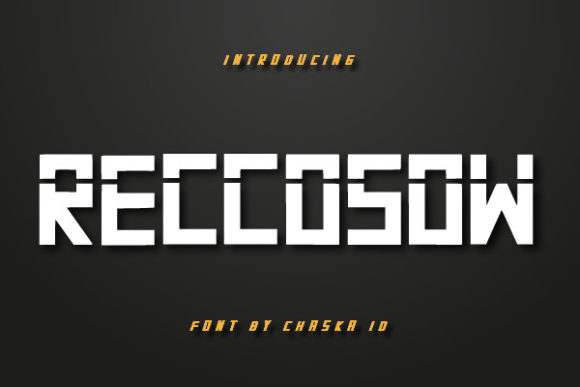
Step into the world of bold and captivating typography with Reccosow, a striking display font that commands attention. Crafted meticulously by Chaska Id, Reccosow exudes a powerful presence, perfect for creating impactful statements that leave a lasting impression. Whether you're designing posters, covers, or advertisements, Reccosow is your ultimate choice to convey a message with boldness and flair.
Unleash your creativity and watch as Reccosow transforms your designs into vibrant masterpieces. Its thick, assertive strokes dance across the page, demanding attention with an undeniable charm. Each letter carries a weight and presence that makes your words leap off the screen, captivating your audience.
Reccosow's strength shines brightest when used for headlines, titles, and branding elements. Its ability to grab attention makes it ideal for creating logos that linger in the mind, posters that command a room, and packaging that screams for your customers' attention.
But Reccosow's charm extends beyond its bold presence. Its versatility lends itself seamlessly to a range of creative endeavors. From eye-catching social media graphics to captivating website headers, Reccosow seamlessly adapts, delivering a unique touch that elevates your designs to new heights.
With Reccosow, you have the power to create designs that resonate, designs that speak volumes, and designs that leave an unforgettable mark. So embrace the boldness, embrace the assertiveness, and download Reccosow today. Unleash the power of typography and let your designs shine with a confidence that's impossible to ignore.